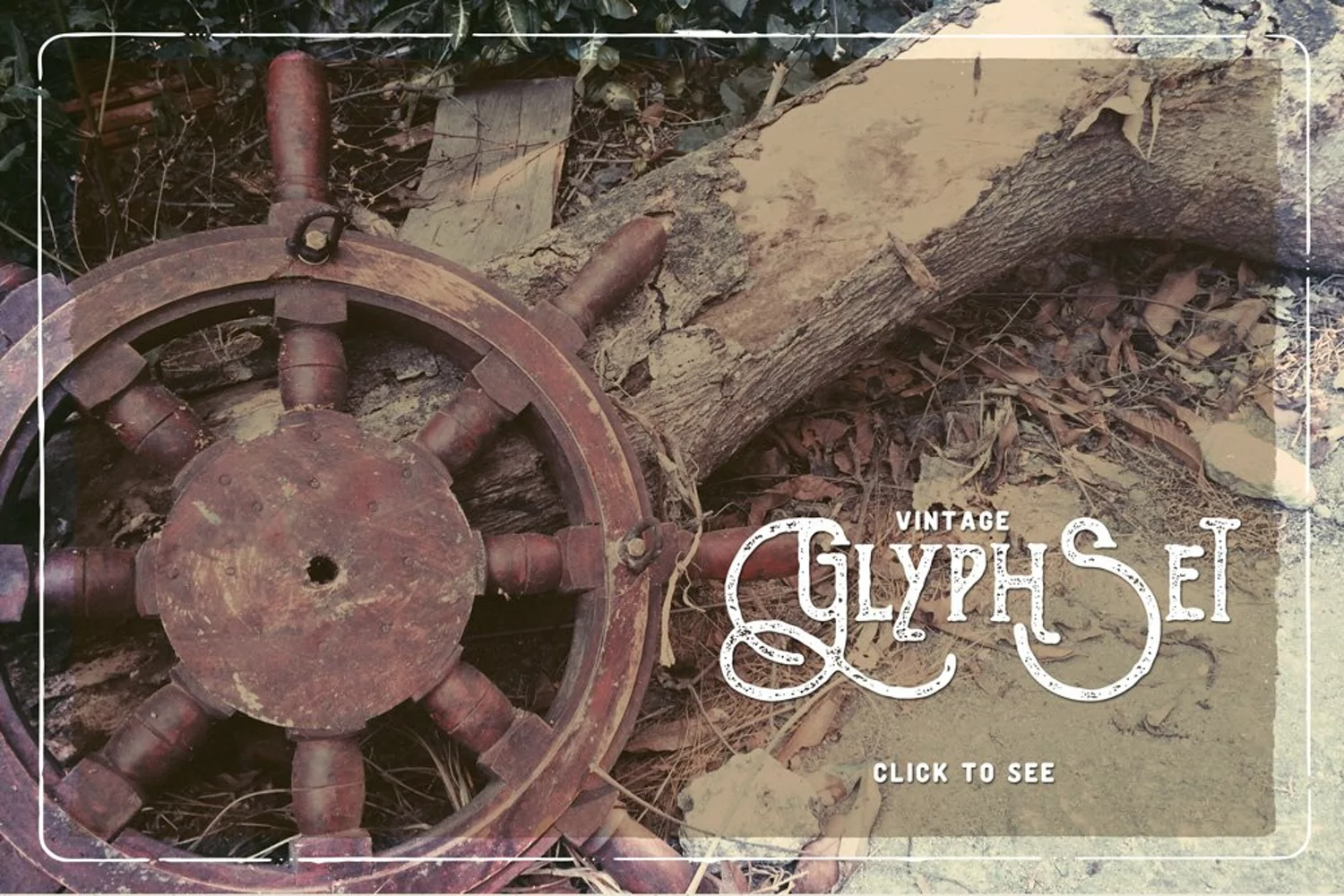
The Goldsmith is hand made modern serif font. Based on ink textured, Each glyph made manually one by one with very diligent and consistency.
The Goldsmith comes with alternate upper and lowercase characters, and supports international languages.